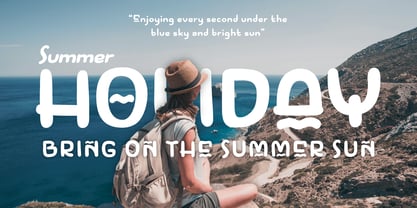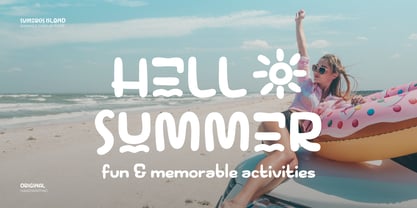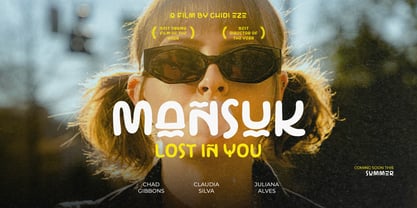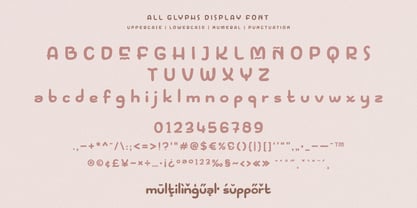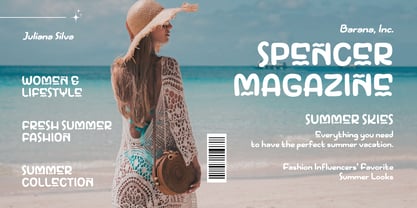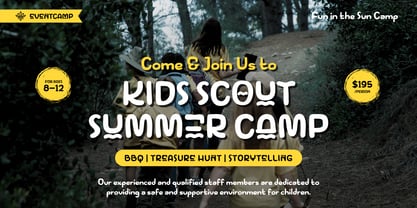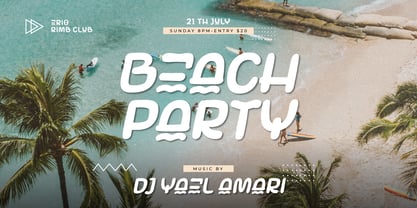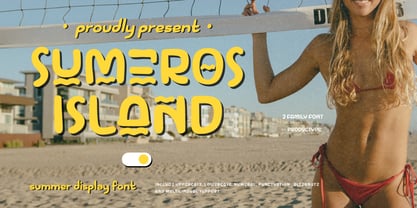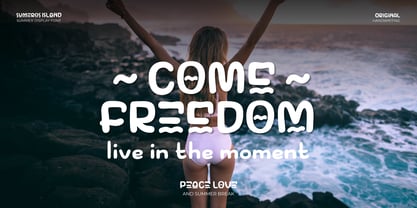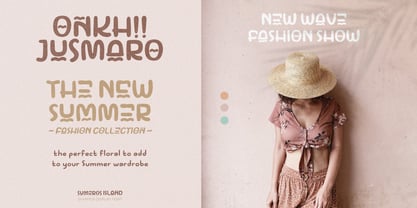
Sumeros Island
Sumeros Island is a fun, vibrant, and carefree hand-drawn display font that perfectly captures the essence of summer. With its playful strokes and relaxed design, this font is ideal for tropical-themed projects, beach party invitations, summer branding, travel posters, and sunny vacation promotions.
Inspired by the warmth of the sun, ocean waves, and island adventures, Sumeros Island radiates joy and positivity. Its handcrafted style adds a touch of authenticity, making your designs feel fresh, lively, and full of energy. Whether you're working on summer apparel, surf club logos, beach bar menus, or festival posters, this font will bring a fun and breezy atmosphere to your project.
Let Sumeros Island be your go-to font for any sunny, tropical, and beach-inspired design. Feel the ocean breeze and bring the island vibes to your next creative work!